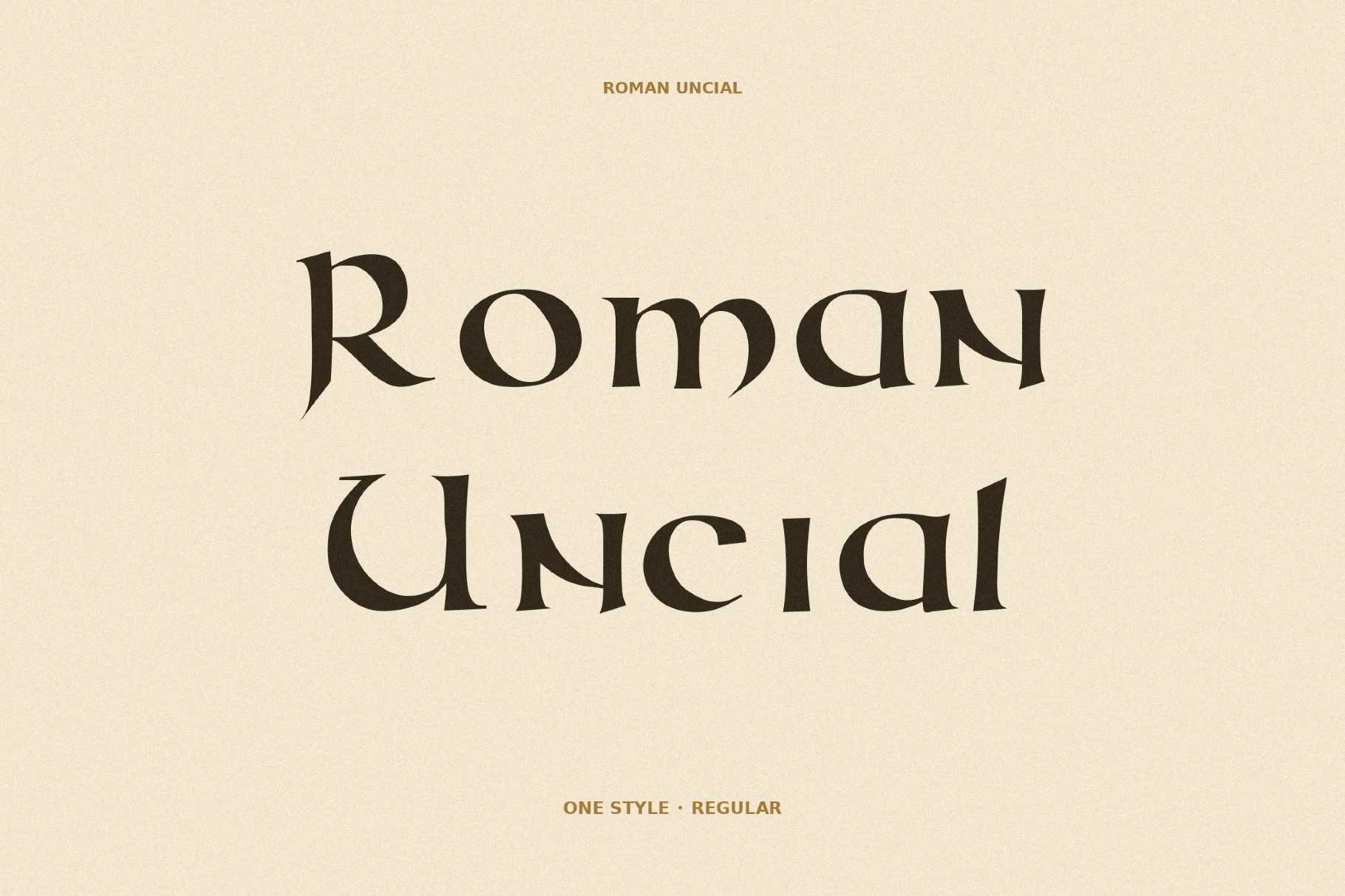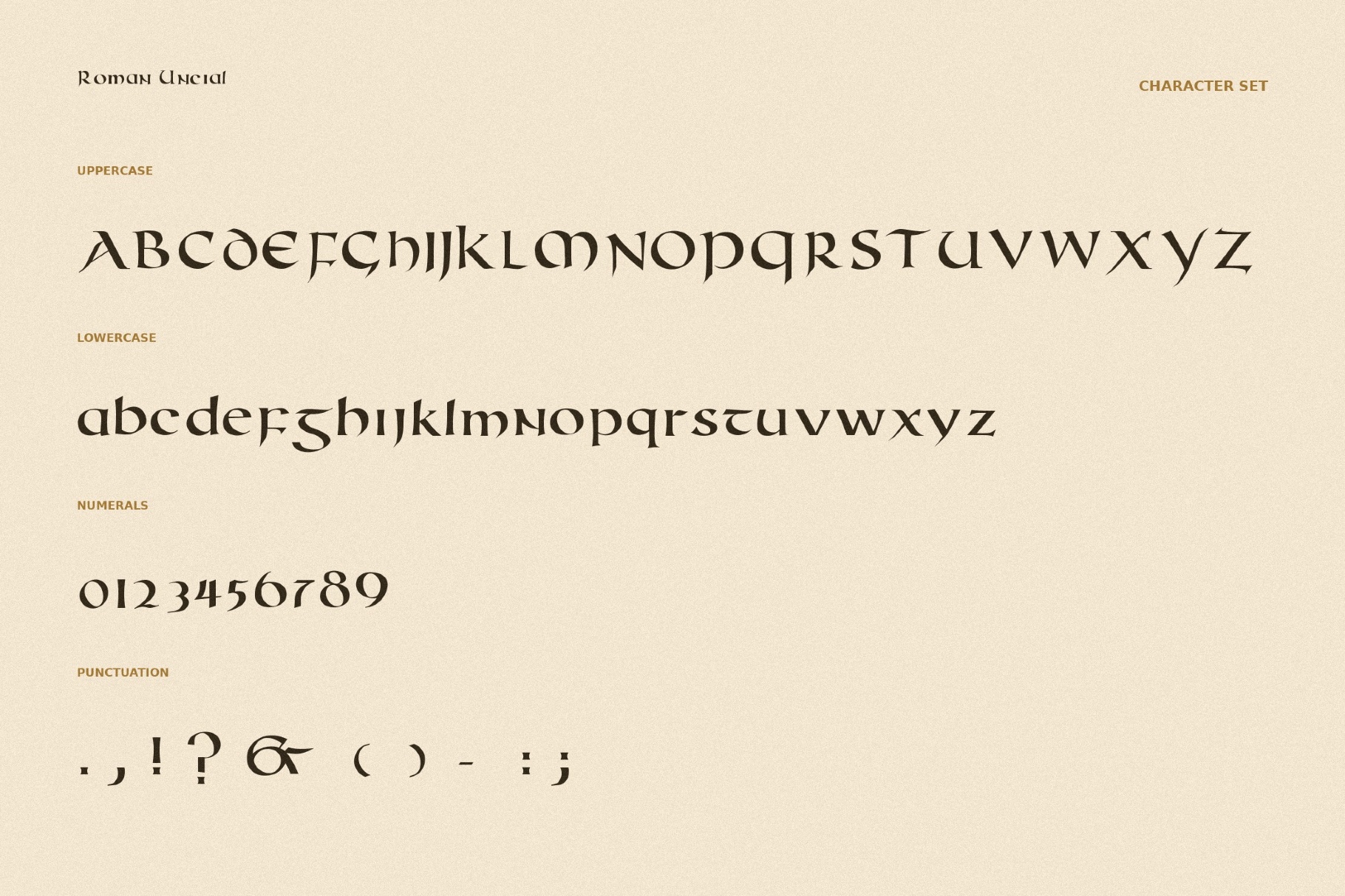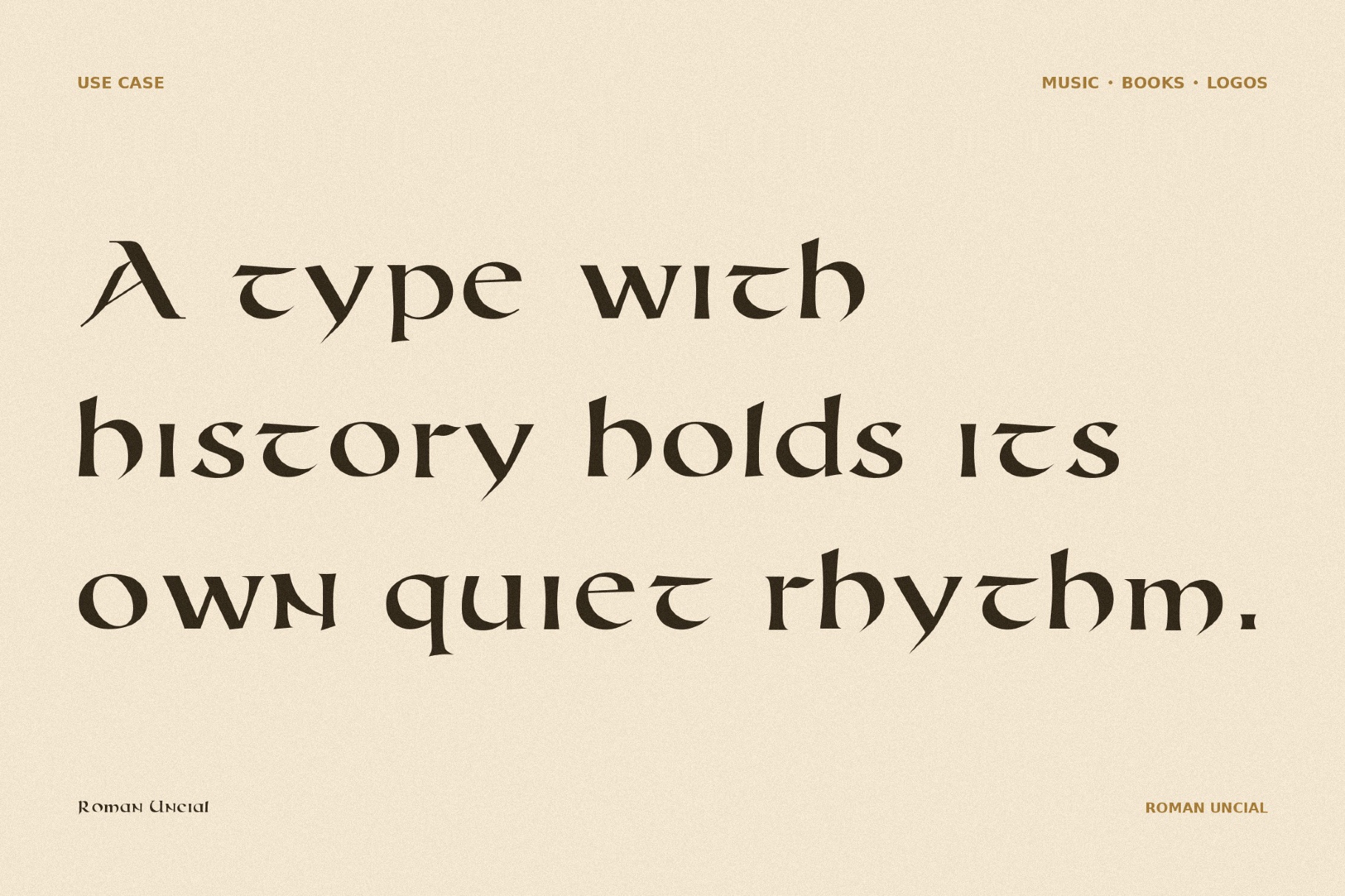
Roman Uncial - Modern Font
Roman Uncial Modern refines ancient manuscript capitals into a clean uncial display font that recalls Roman inscriptions, Celtic codices, and early medieval book art. Its balanced curves bring dignity and atmosphere to short titles, names, and display layouts, and make the typeface perfect for fantasy titles, museum graphics, book covers, heritage branding, wine labels, ceremonial invitations, editorial headers, historical packaging, cultural posters, and boutique identities.
- uppercase and lowercase letters;
- numbers, punctuation, and symbols;